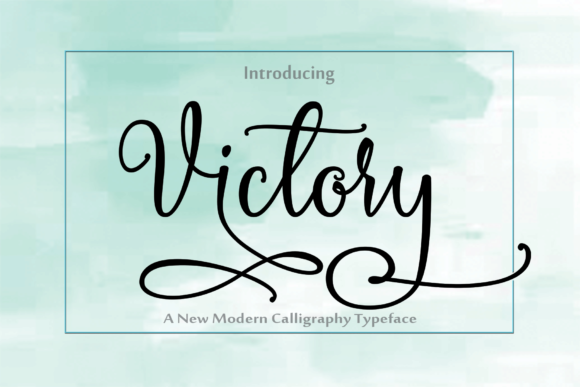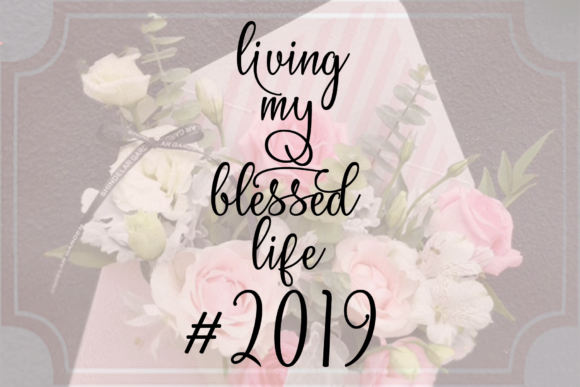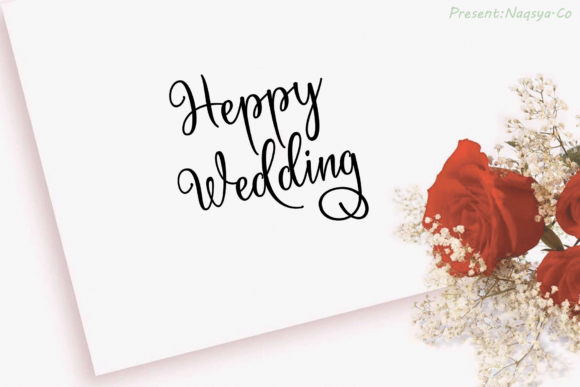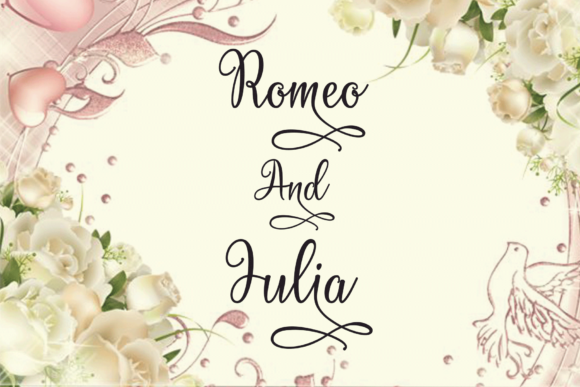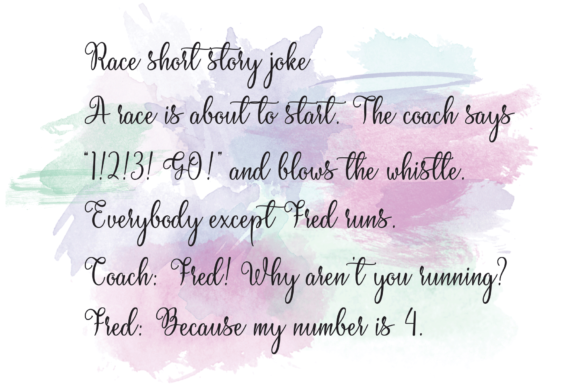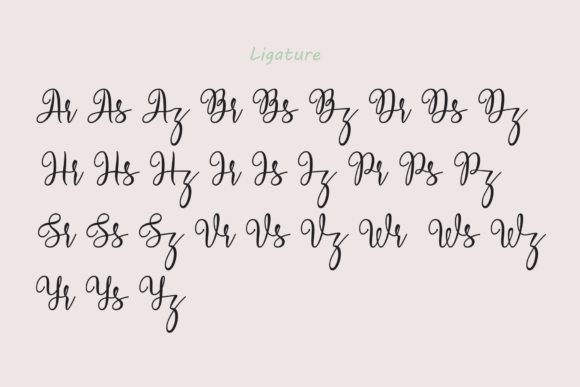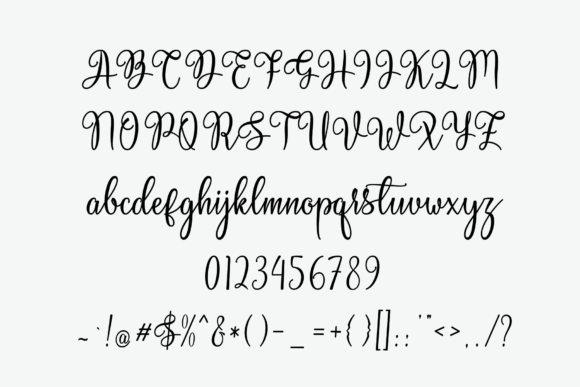
Victory Font
About Victory Font
The Victory is an amazing handwritten font. It has natural characteristics and will add an elegant touch to your designs.